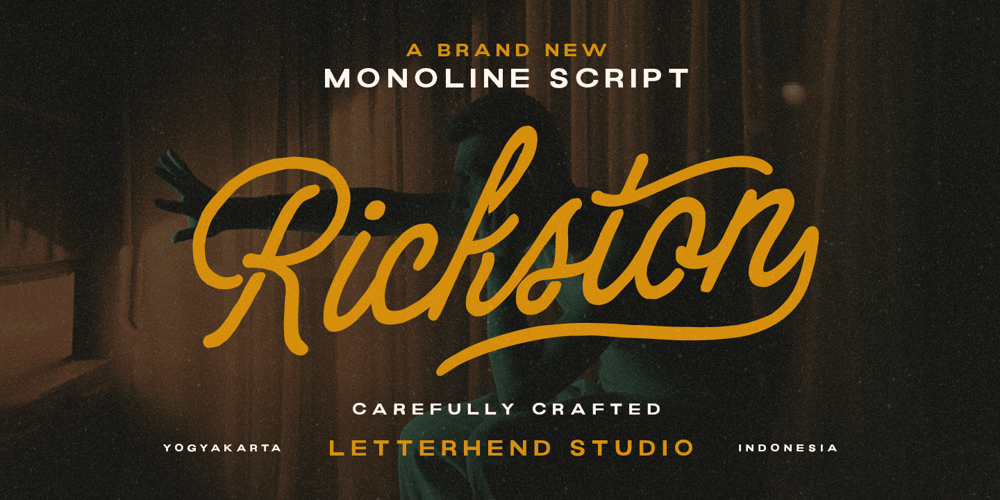
Rickston Font Family was designed by Hendry Juanda and published by Letterhend. Rickston contains 1 styles and family package options. Rickstone is a monoline script with carefully crafted. Its clean and casual , making it an ideal choice for designs that demand a cool especially in logo, headline, signage and the other various formal forms such as invitations, labels, logos, magazines, books, greeting / wedding cards, packaging, fashion, make up, stationery, novels, labels or any type of advertising purpose.Features : Uppercase & lowercase Numbers and punctuation Alternates Multilingual PUA encoded We highly recommend using a program that supports OpenType features and Glyphs panels like many of Adobe apps and Corel Draw, so you can see and access all Glyph variations.